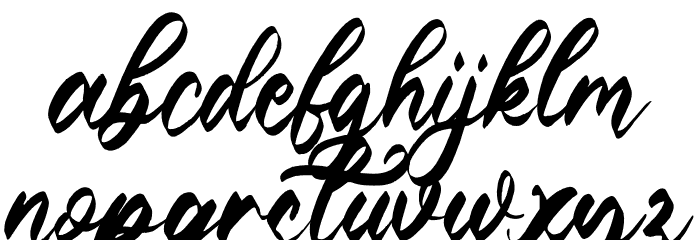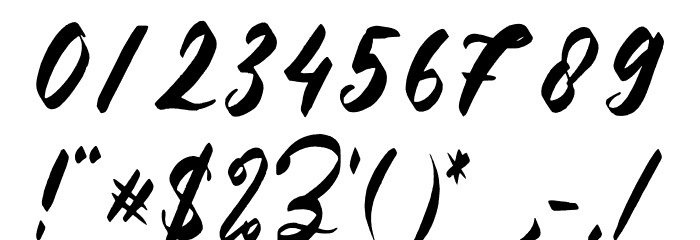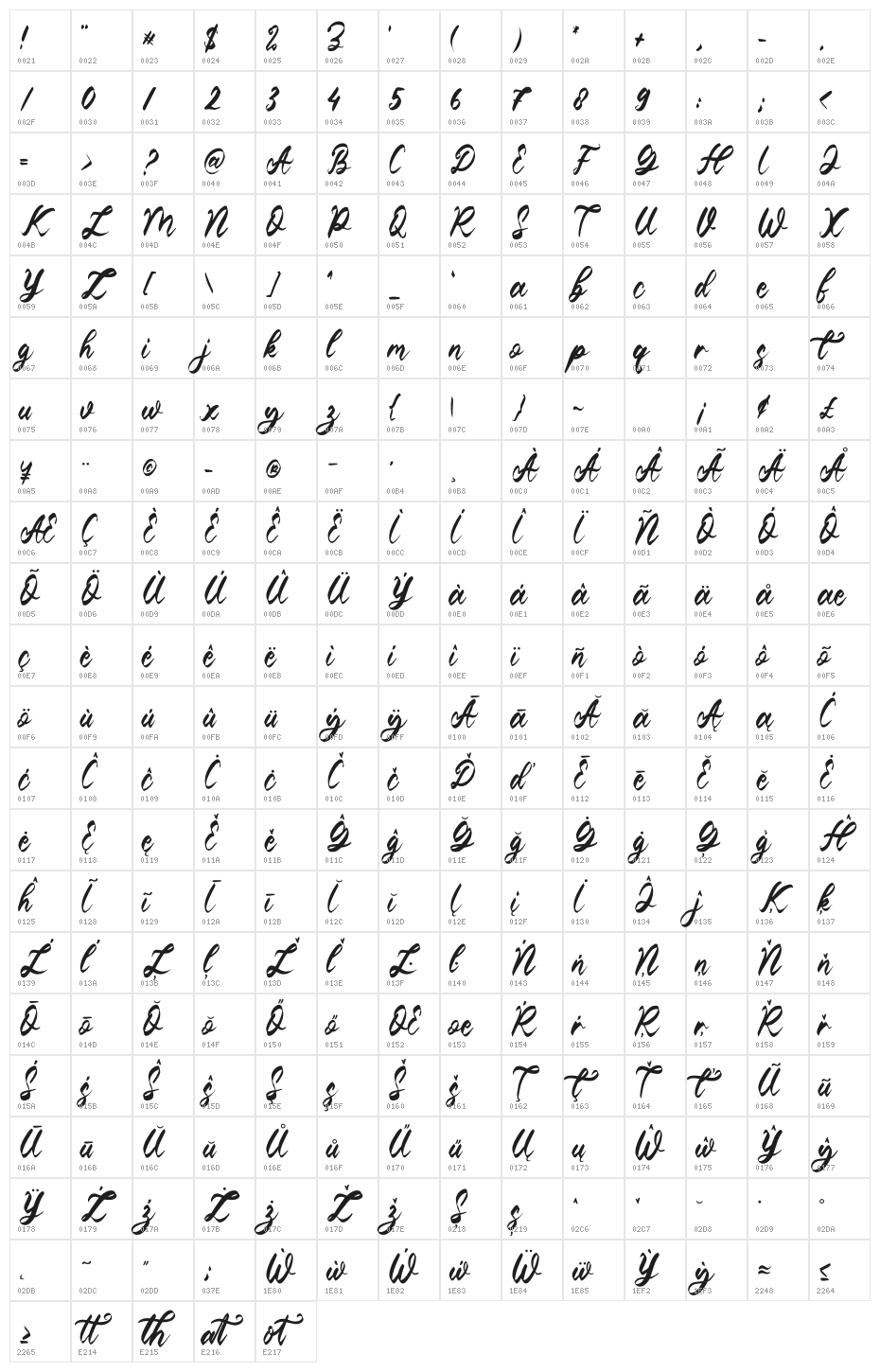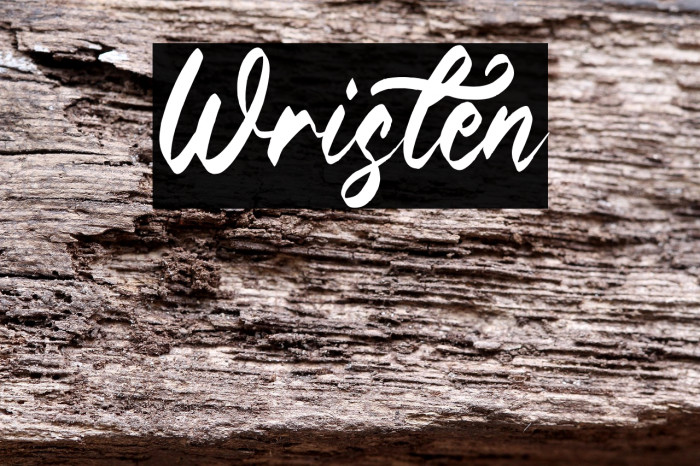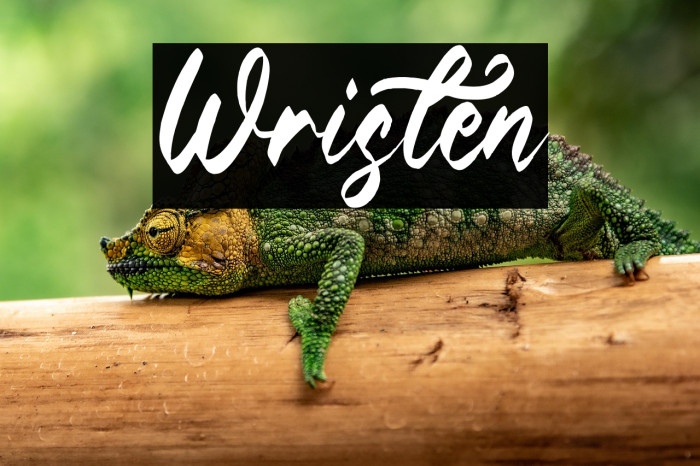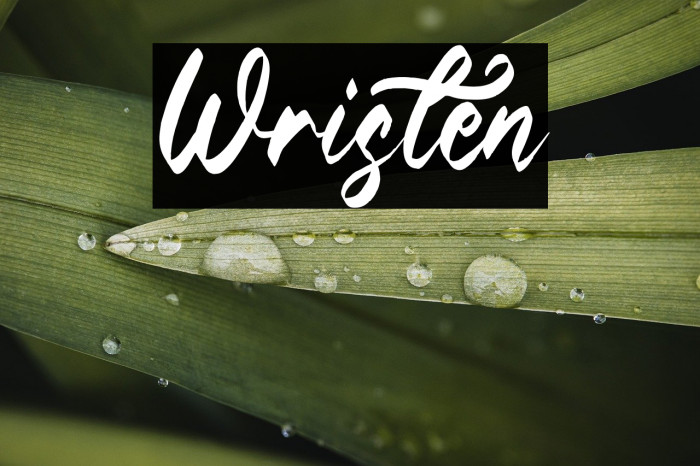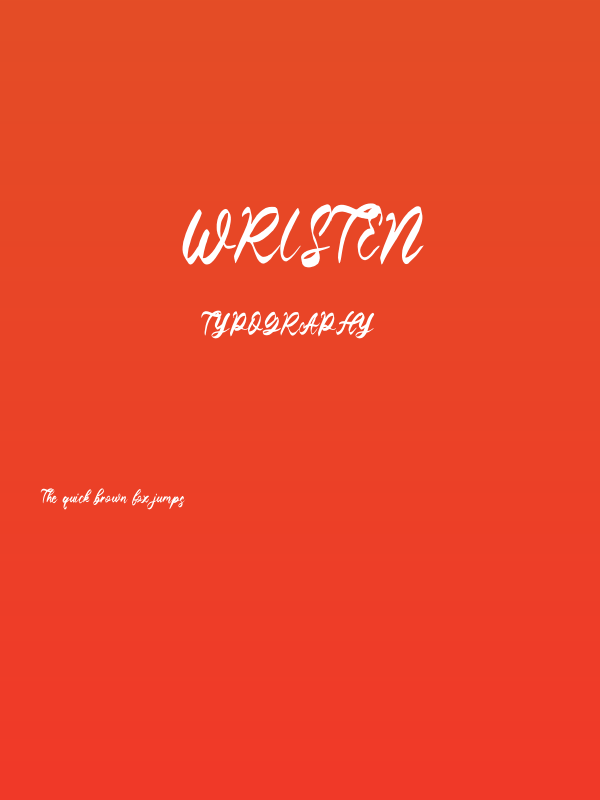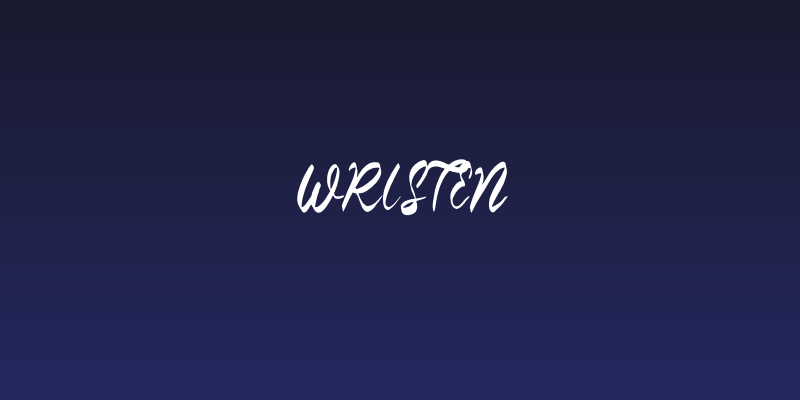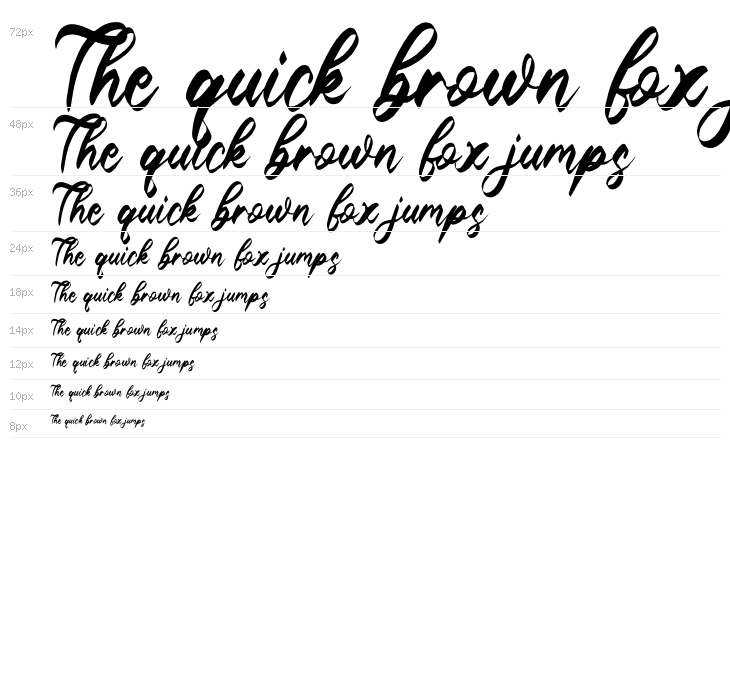
Wristen Font
This font showcases an elegant and flowing script style, characterized by its smooth, cursive strokes and a sense of fluidity. The uppercase letters are bold and sweeping, with distinctive loops and curves that give them a dynamic appearance. The lowercase letters maintain a consistent flow, connecting seamlessly in a manner reminiscent of traditional handwriting. The numerals and special characters are crafted with the same attention to detail, ensuring a cohesive look throughout. This font exudes a sense of sophistication and grace, making it ideal for projects that require a touch of elegance.
An elegant, flowing script font with bold, cursive strokes.
- Font: Wristen
- Proposed Projects: Ideal for wedding invitations, elegant branding, personal signatures, and decorative headings.
- Category: Script
- Character Spacing: Tight
- Overall Style: Elegant
- Use Case: Logos, Invitations, Decorative headings